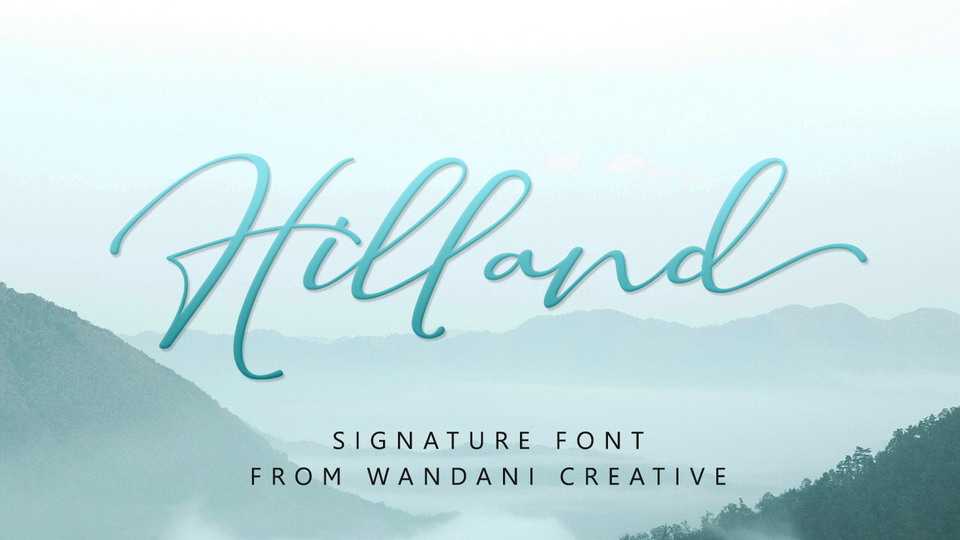
Download Hilland font, an elegant signature script with a dancing baseline, which will give your design a fresh and modern feel. Hilland is perfect for greeting cards, branding materials, christmas, business cards, quotes, posters, and every other design which needs to look upscale and chic!
Designer: Wandani Creative